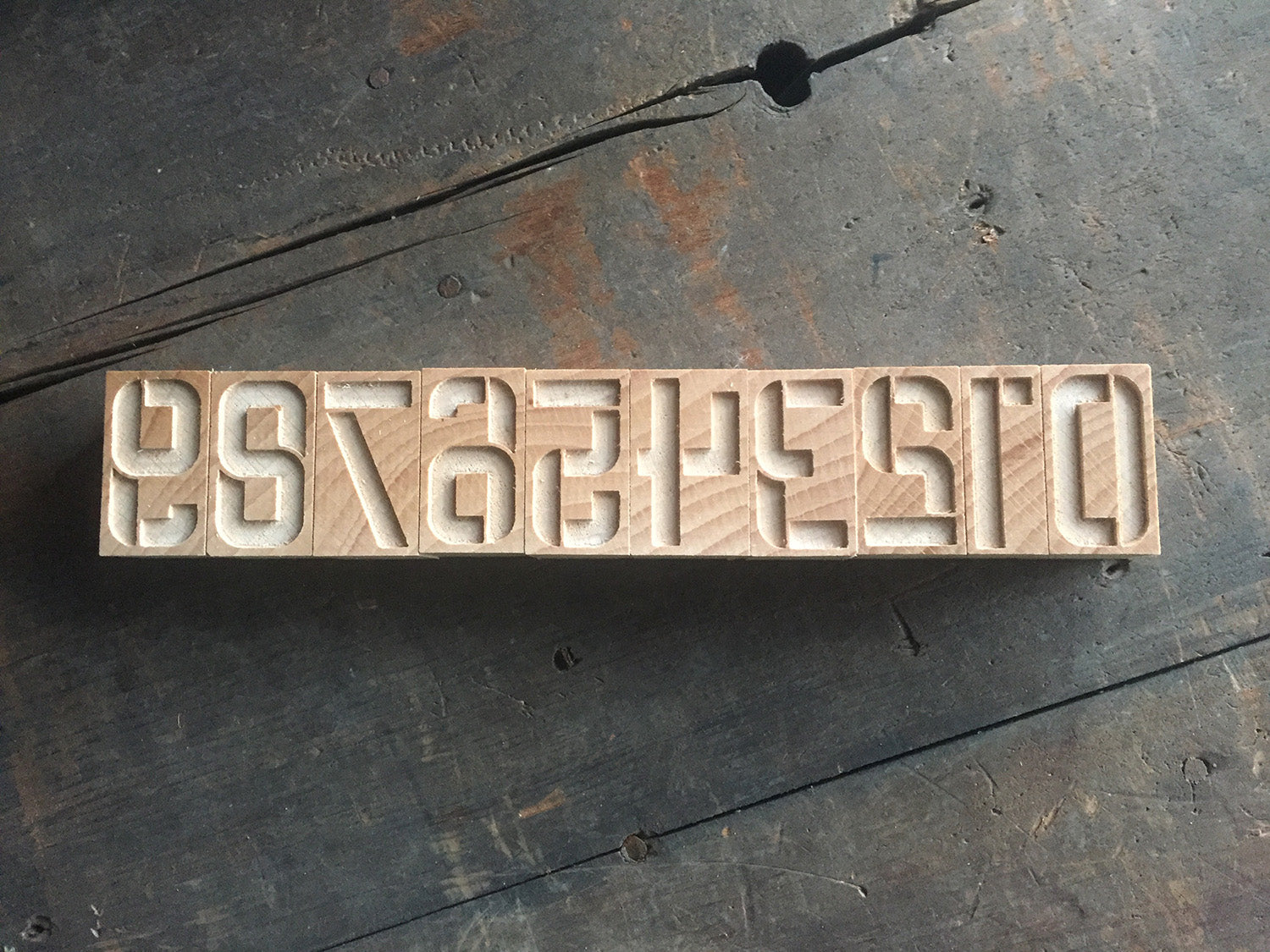
Newly cut letterpress inverse stencil numerals designed by Christopher Branson in 2012.
10 line (42.3mm) version cut from end grain English beech wood using a combination of modern CNC technology and traditional hand woodworking tools (including an original printers saw), made to English type-high (0.918in or 23.3mm) within plus or minus 0.2mm tolerance, with a traditional polished shellac printing surface.
English end grain beech, clear shellac
Each block measures 24mm x 23.3mm x 42.3 with the exception of the 1 and 4.
Made by Mark McKellier